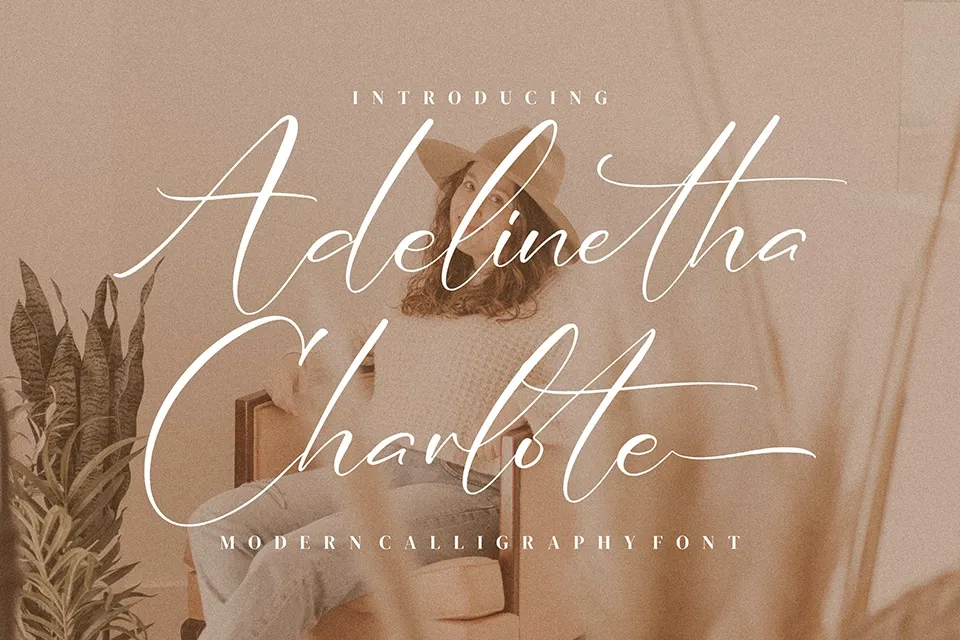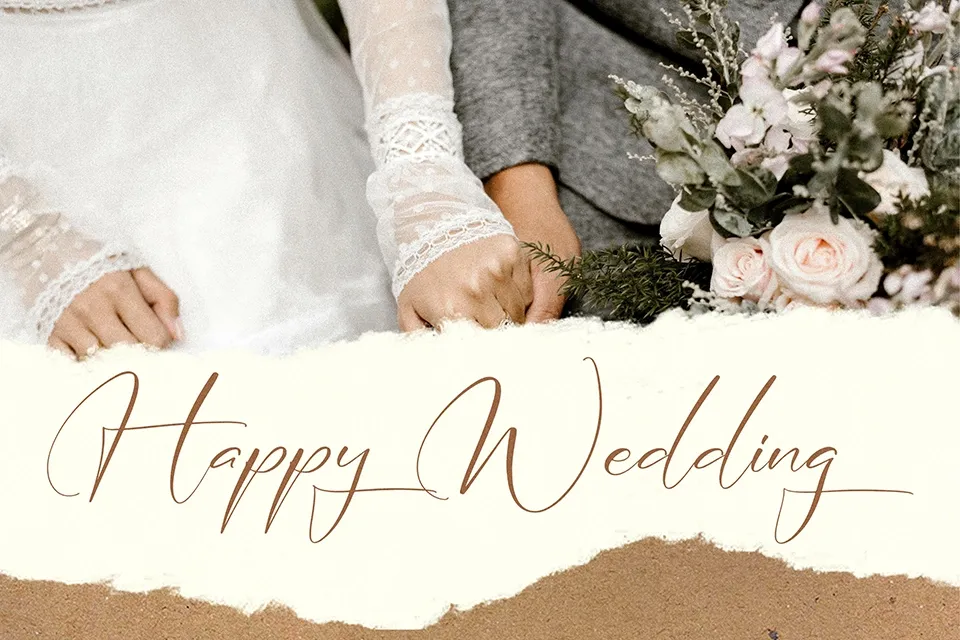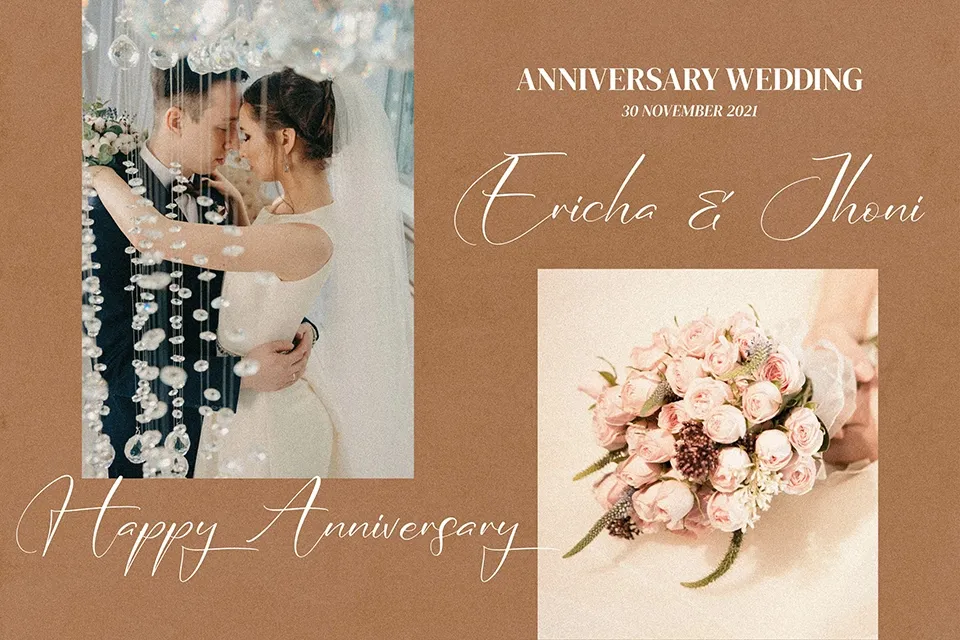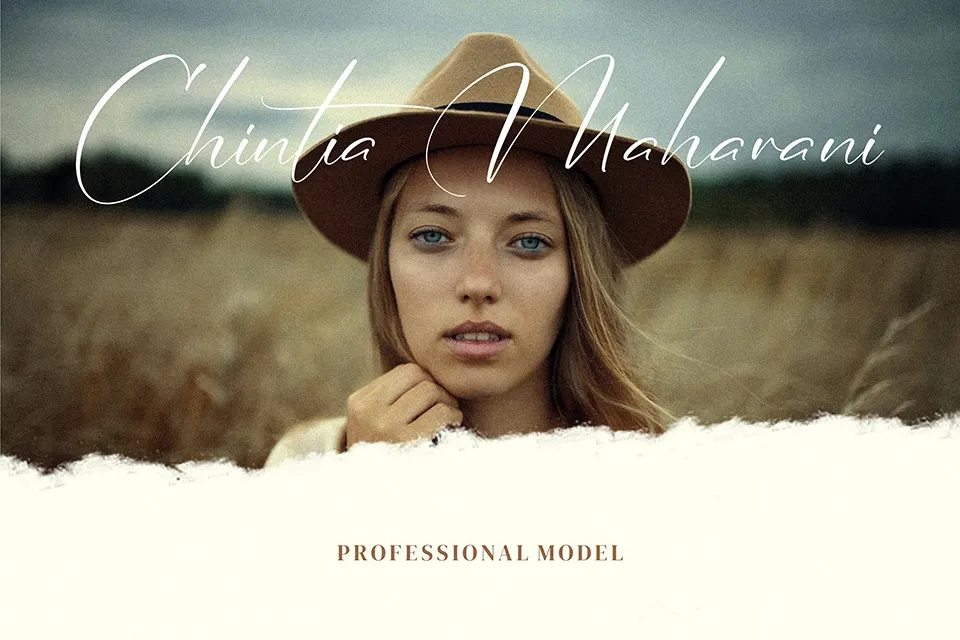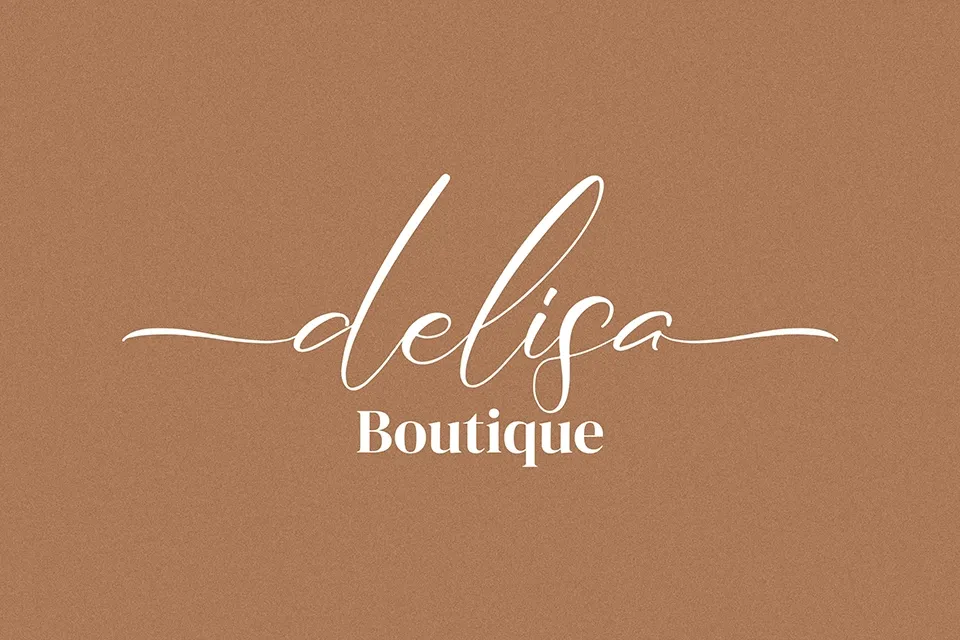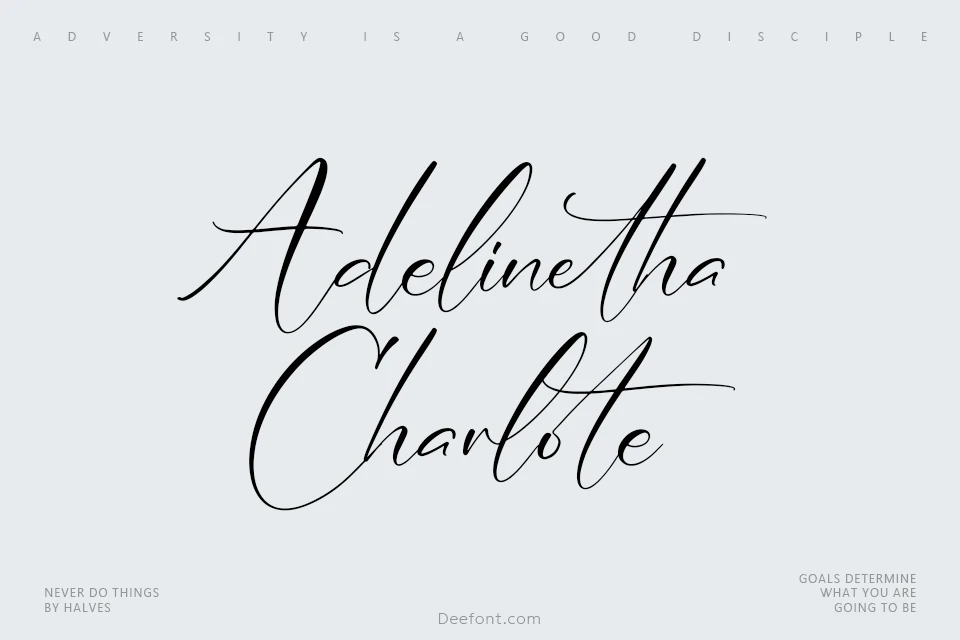
Adelinetha Charlote Font
Adelinetha Charlote Font is a stunning modern calligraphy typeface that exudes elegance and sophistication. Perfectly crafted for creative projects, this font features graceful, flowing letterforms with delicate strokes, making it ideal for wedding invitations, branding, social media designs, and other artistic creations. Its stylish and versatile design adds a touch of luxury and charm to any text, creating a timeless aesthetic. Adelinetha Charlote combines classic calligraphy with a contemporary flair, ensuring both beauty and readability. Whether used for personal or professional designs, this font is sure to captivate and elevate your projects with its refined artistry.